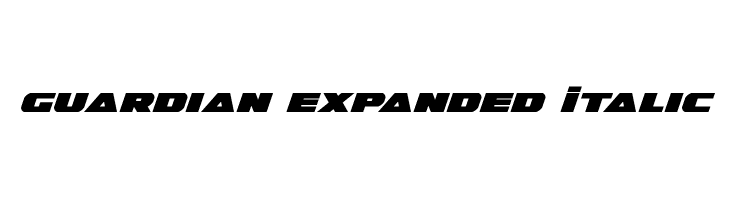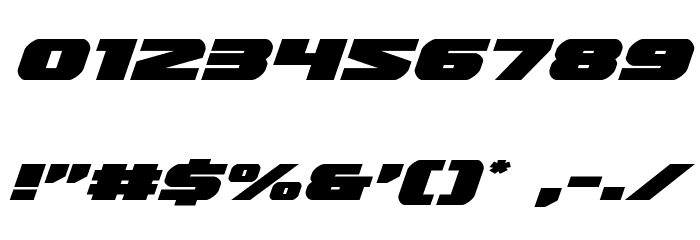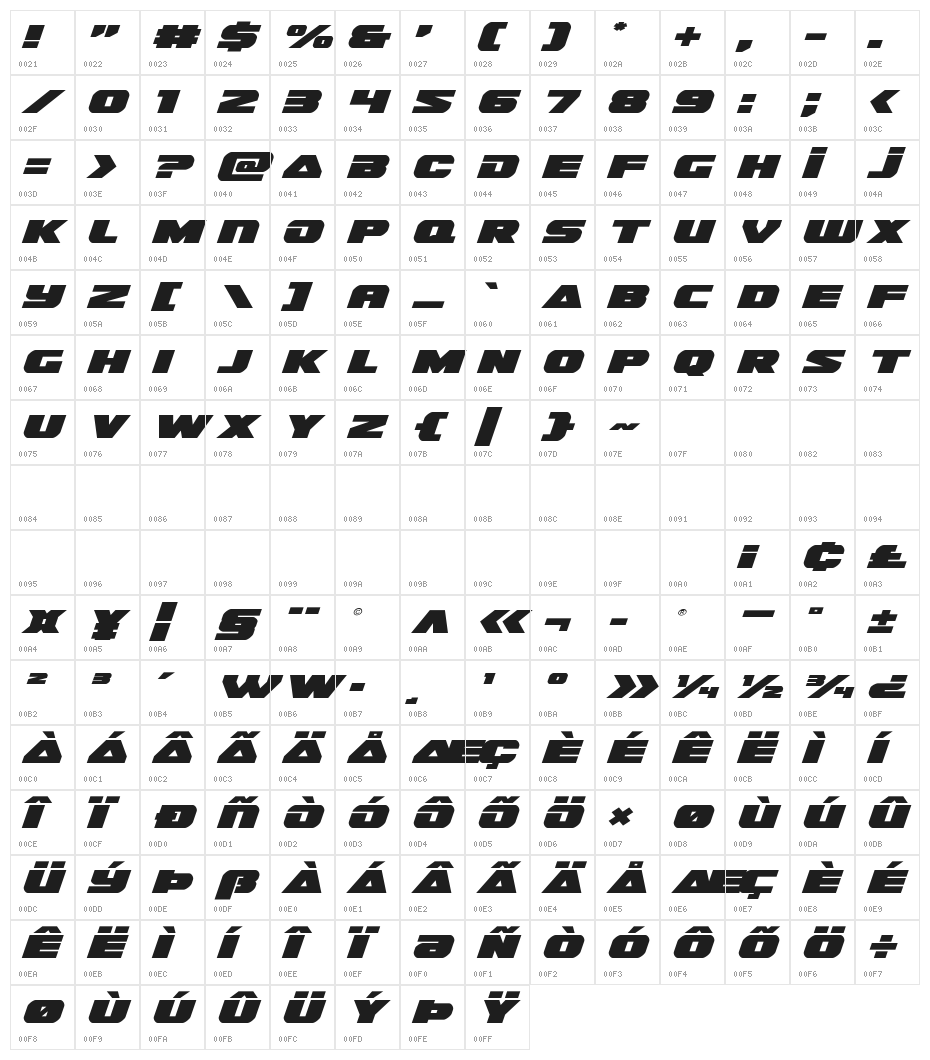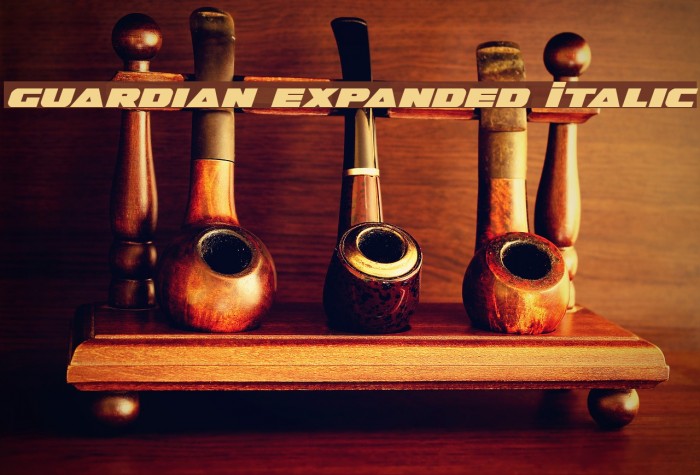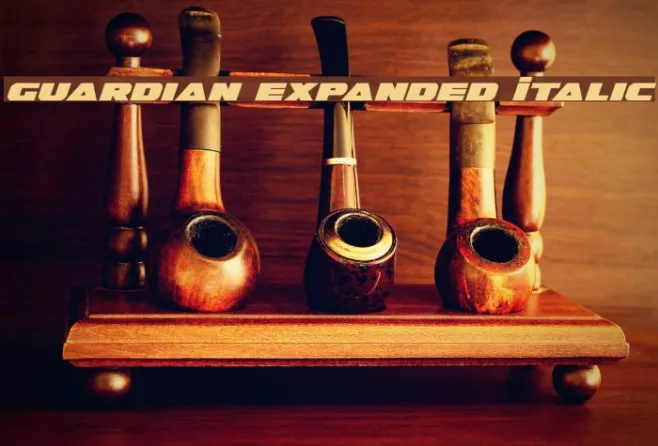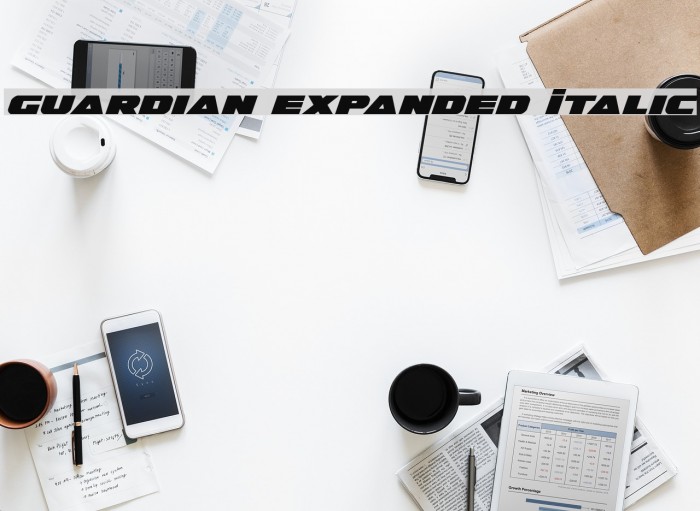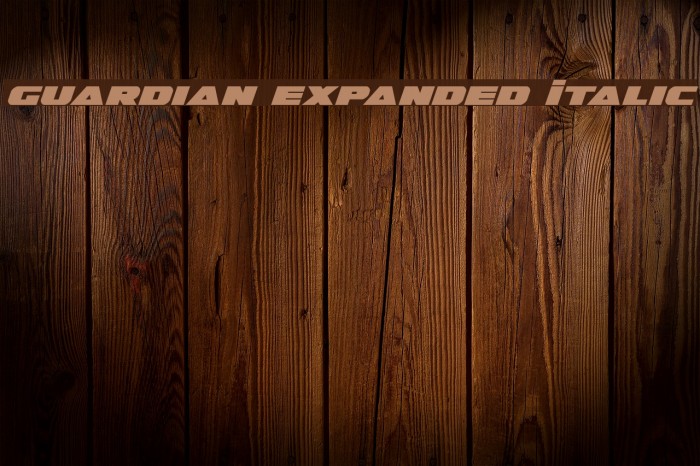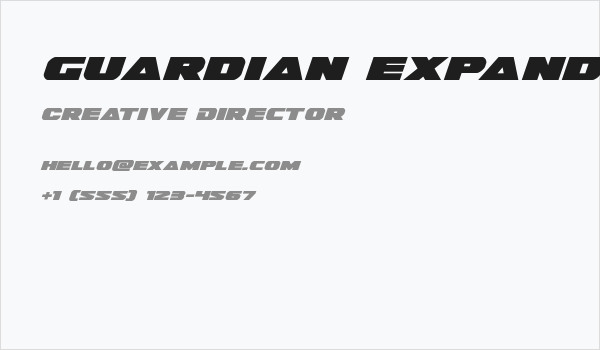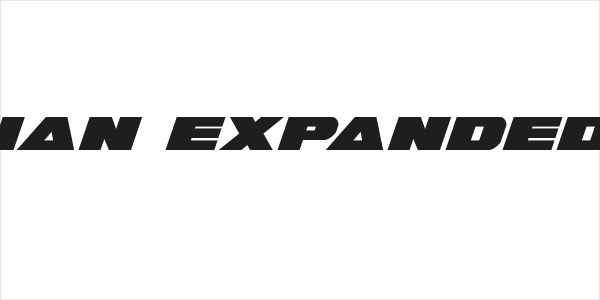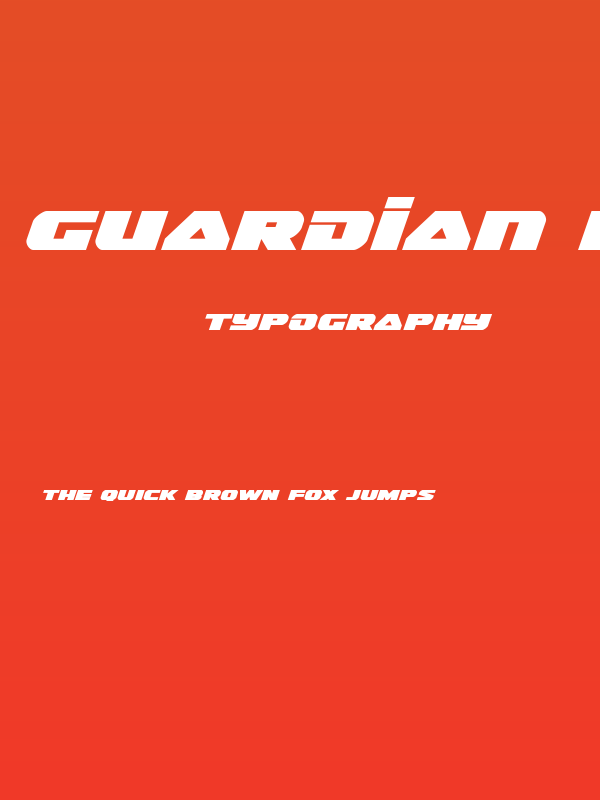
Guardian Expanded Italic Font
Guardian Expanded Italic Description
This font features a bold and dynamic style with an italic slant, giving it a sense of motion and energy. The characters are expanded, providing a wide and impactful appearance. The strokes are thick and consistent, contributing to a strong visual presence. The design is modern and sleek, suitable for making a statement. The uppercase and lowercase letters maintain a uniform style, while the numerals and special characters are crafted to match the overall aesthetic. This font is ideal for projects that require a bold and attention-grabbing typeface.
| Proposed Projects | Ideal for headlines, posters, branding, and any design needing a strong, modern typeface. |